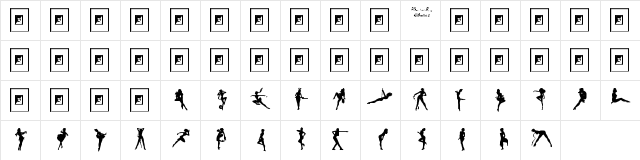
Darrians Sexy Silhouettes 2 Regular
Design Context for Darrians Sexy Silhouettes 2 Typeface
Darrians Sexy Silhouettes 2 is a composed and adaptable typeface that performs quietly and consistently across a wide range of design contexts.